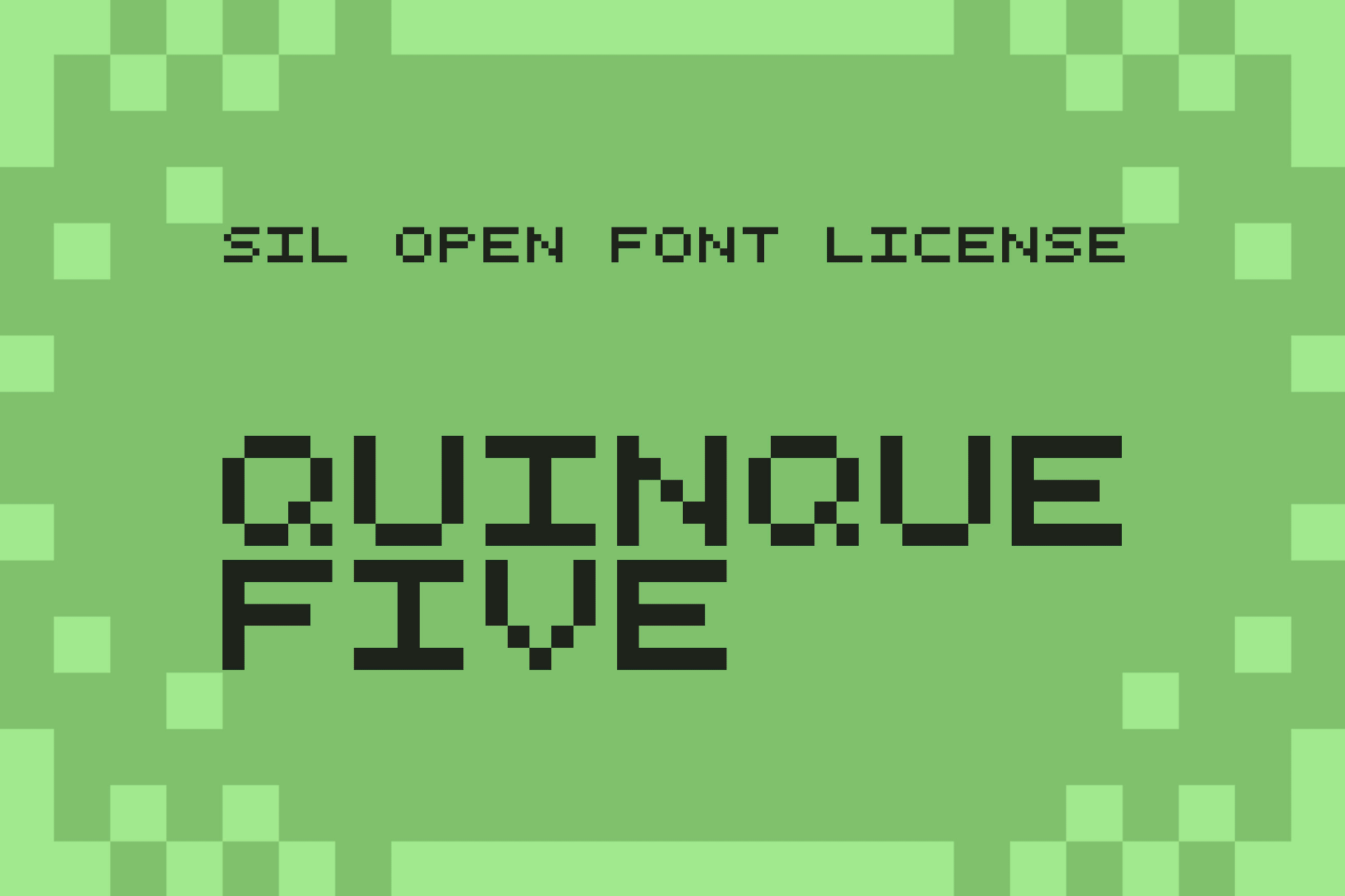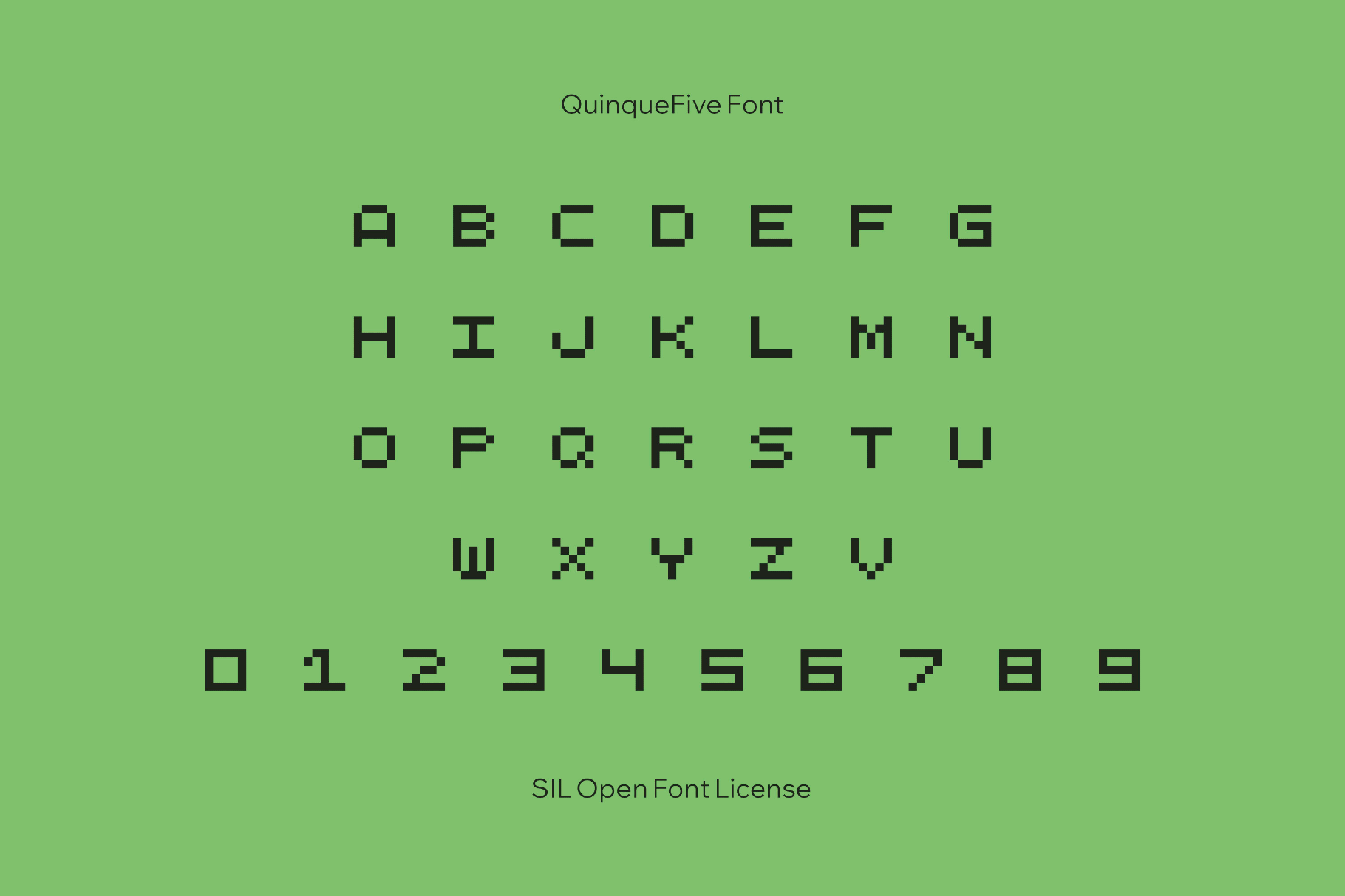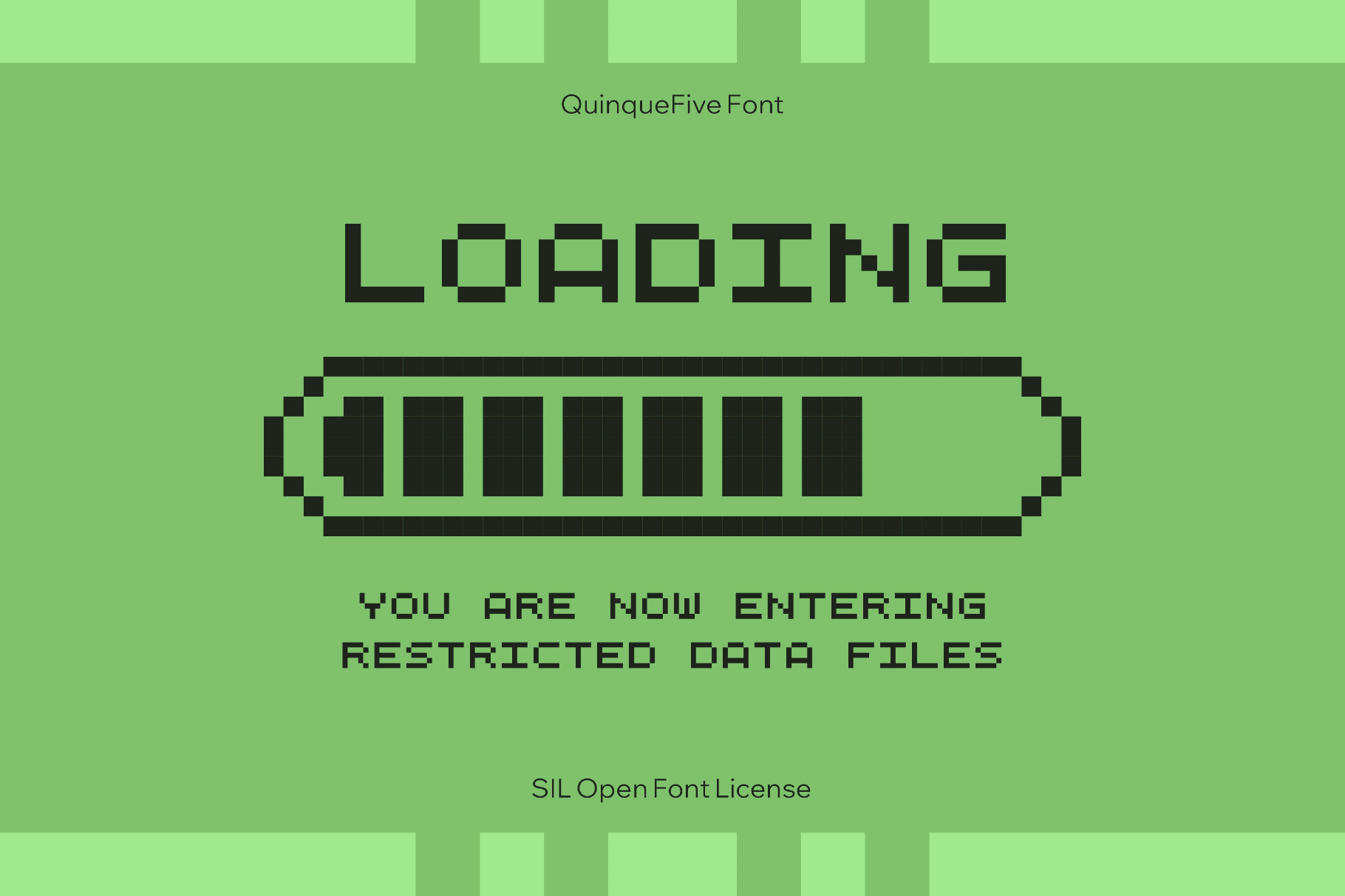
QuinqueFive Font
QuinqueFive
QuinqueFive is a 5×5 monospaced pixel face that stacks square modules into compact letters with precise one-block spacing across resolutions. It suits arcade and puzzle games, score counters, mini–UI labels, low-res mockups, and logos for tech, makerspaces, and indie studios. Use it on retro platformer titles, UI labels and tooltips, coding and hardware zines, scoreboard-style overlays, pixel-art captions, and icon-heavy dashboards.
- Uppercase letters, numbers, punctuation, symbols, extended mathematical symbols, and metrics.
- Multilingual support across extended Latin, extended Cyrillic, and extended Greek scripts.